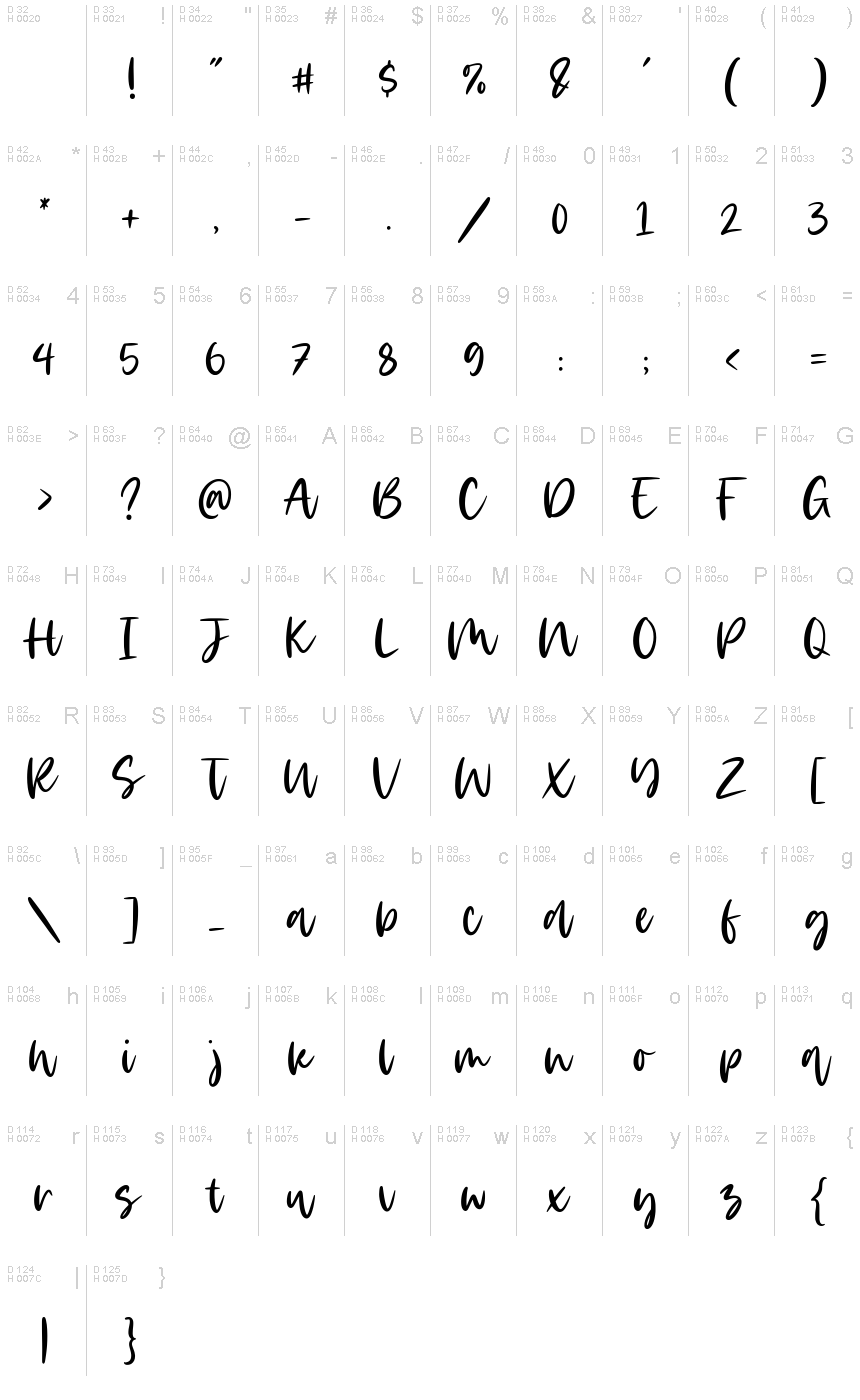
Rabioten
Rabioten, crafted by Timur Type, is a handwritten font that radiates a casual yet sophisticated charm. Its fluid strokes and variable line thickness evoke the elegance of calligraphy with a modern twist. Each character is imbued with an organic warmth, making it reminiscent of bespoke stationery or artisanal branding.
This font's aesthetic appeal lies in its balance between personal touch and refined grace, making it an ideal choice for invitations, boutique branding, and editorial design where a touch of human presence adds value and authenticity. Rabioten's style bridges the gap between approachable and professional, ensuring versatility across various creative applications.